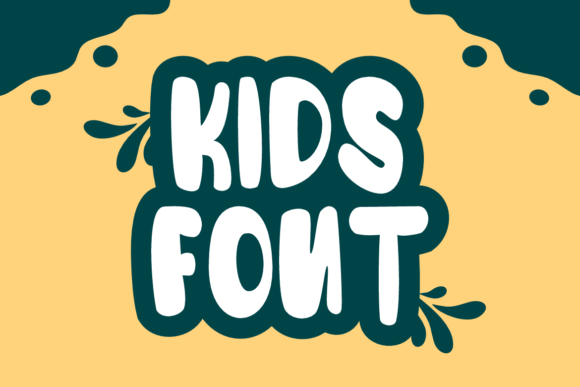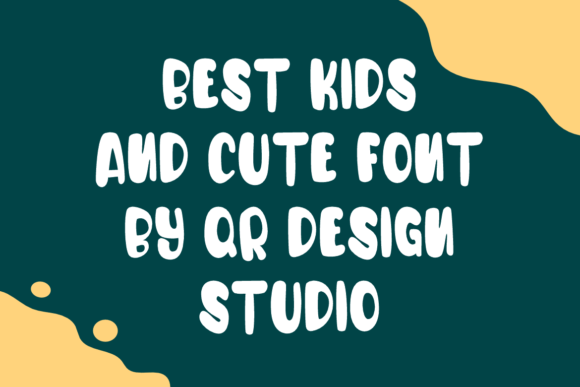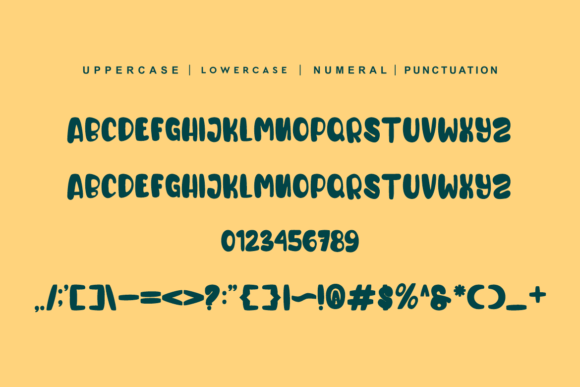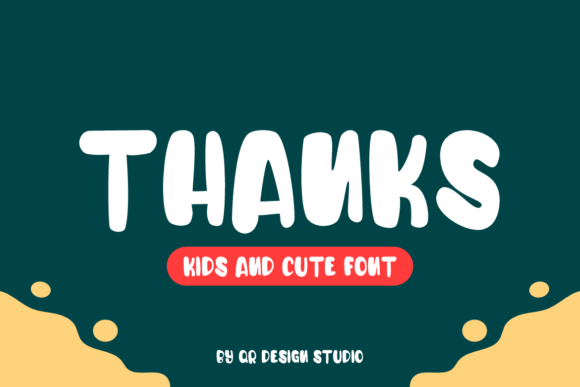
Introduction to Playfun Today Font
Have you ever found yourself scrolling through your computer’s font library, searching for the perfect match for your next creative project? Maybe you’re designing a birthday card for a little one, or preparing a presentation for a school project. Whatever it is, I’m sure you can relate to the excitement of discovering a new font that perfectly captures the essence of your idea. This is exactly what happened when I stumbled upon the Playfun Today Font, and I’m thrilled to share its charms with you.
Designed to convey friendliness and approachability, this high-quality font is a must-have in any designer’s arsenal. With its free download availability, it’s a valuable resource for designers looking to add a touch of whimsy to their projects. Whether you’re working on a craft, a digital design, or a presentation, the Playfun Today Font is sure to bring a smile to your face and your clients’. Its transparent background makes it easy to use and customize, making it a perfect fit for any creative project.
Key Features of Playfun Today Font
- High-quality design resource with a playful and modern style, perfect for creative projects.
- Comes with a transparent background, allowing for easy customization and flexibility in design.
- Features a large character set, including uppercase and lowercase letters, numbers, and punctuation marks.
- Unique characteristics include its bold and vibrant lines, making it ideal for use in logos, branding, and advertising materials.
Honest Review: Playfun Today Font
I recently had the chance to experiment with the Playfun Today Font, and I’m excited to share my honest thoughts. As a designer, I’m always on the lookout for high-quality fonts that can elevate my creative projects. In this review, I’ll break down what works well, what doesn’t, and my overall impression.
- The Playfun Today Font has a unique, playful design that’s perfect for creative projects that require a bit of whimsy.
- The font is available in a range of weights, making it easy to use in a variety of contexts.
- The font may not be suitable for professional or corporate projects, as it’s a bit too playful for those types of applications.
- The font doesn’t include any additional characters or glyphs, which may be a limitation for designers who need to work with non-Latin scripts.
Overall, I think the Playfun Today Font is a great addition to any designer’s toolkit. While it may not be perfect for every project, it’s a fun and versatile font that’s sure to add some personality to your creative work.
The Playfun Today Font is perfect for creative projects such as social media graphics, posters, and infographics. It’s also great for designing logos, business cards, and other marketing materials. With its free download and high-quality design, it’s an essential design resource for any creative project.